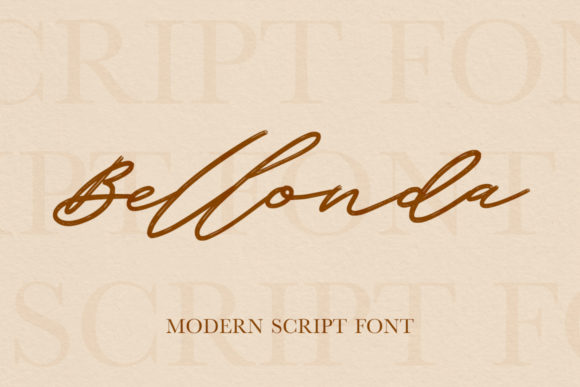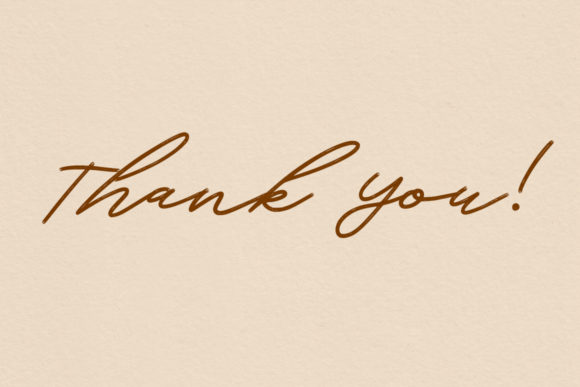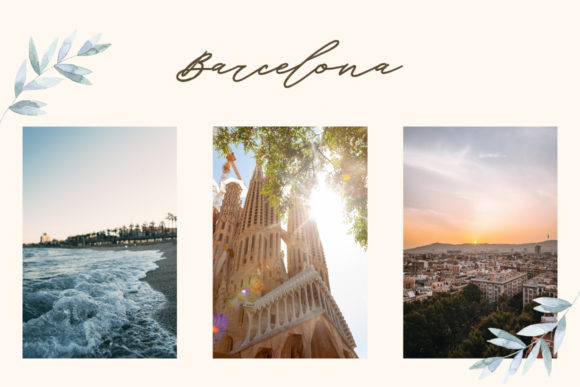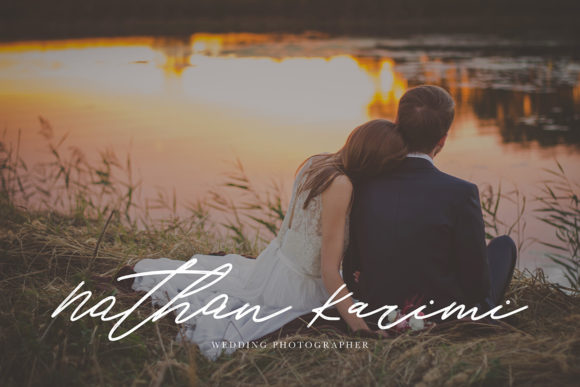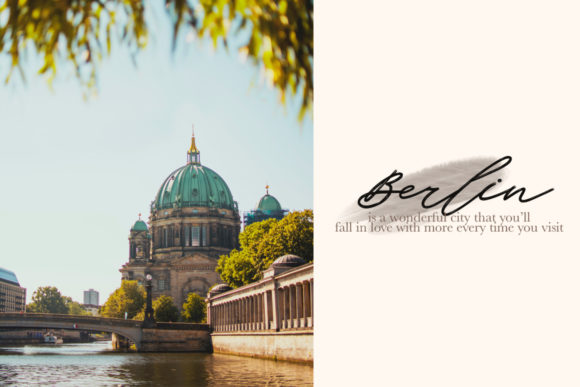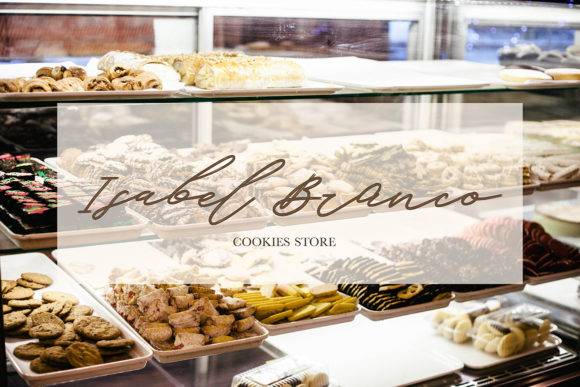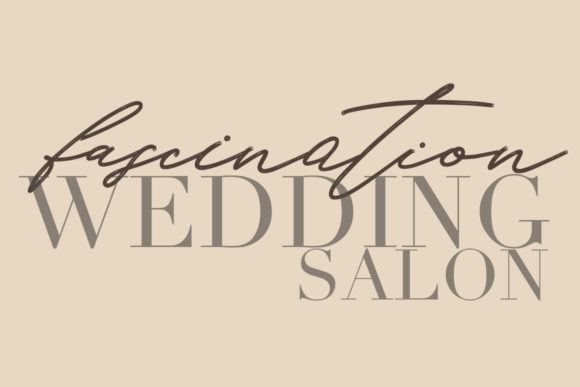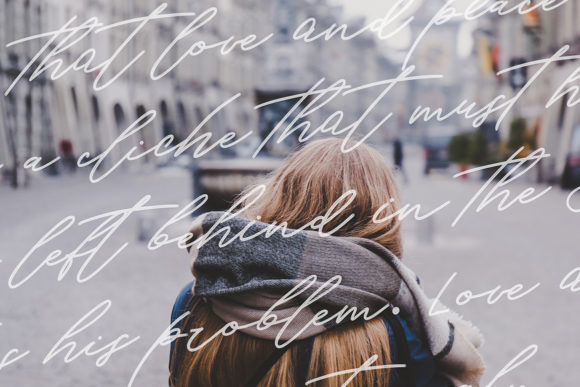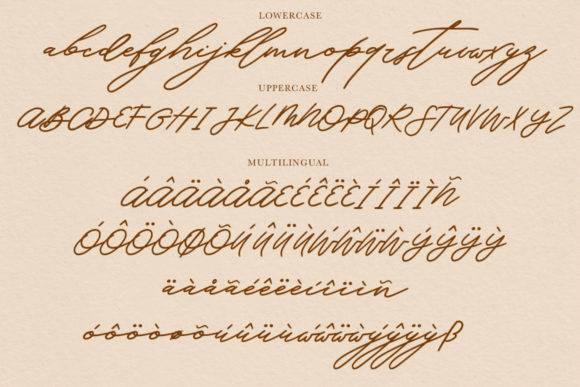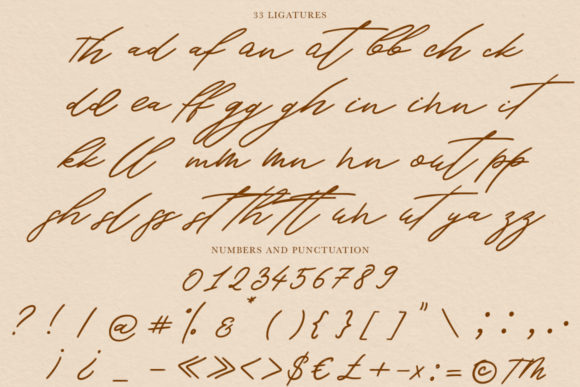
HomeScript FontsBellonda Font Script Fonts Bellonda Font FacebookXPinterestWhatsApp Bellonda Font Poster 2 Bellonda Font Poster 3 Bellonda Font Poster 4 Bellonda Font Poster 5 Bellonda Font Poster 6 Bellonda Font Poster 7 Bellonda Font Poster 8 Bellonda Font Poster 9 Bellonda Font Poster 10 About Bellonda Font Bellonda is a smooth and gorgeous modern font made carefully from real handwriting. DOWNLOAD ON CREATIVE FABRICAThis font is sold and delivered by Creative Fabrica. Font Canyon may earn a commission if you buy through this link. People also explored Trustdeer Font Blackred Font Heather Stone Bella Canvas 3001 Mockup Gloria Belova Font Camping Script Font Lawrence Fatrix Tribeca Script Aghnesta Trio Font 447 0 TagsBellonda Font Previous articleLiontin FontNext articleHello Diandra Font LEAVE A REPLY Cancel reply Comment: Please enter your comment! Name:* Please enter your name here Email:* You have entered an incorrect email address! Please enter your email address here Website: Save my name, email, and website in this browser for the next time I comment. Personal Use Free Strasua Personal Use Free Read more about this font Summer Pisces Personal Use Free Read more about this font Cadosa Personal Use Free Read more about this font Goldsaber Personal Use Free Read more about this font BLOG Fonts That Capture the Spirit of New York City New York City is more than just a place—it’s an experience, a rhythm, a visual language... Top 7 Google Fonts Alternatives for Faster and Privacy-Friendly Web Design (2025) Best Fonts for T-Shirt Design – Top 2025 Picks Modern Sans-Serif Fonts That Brands Love in 2025